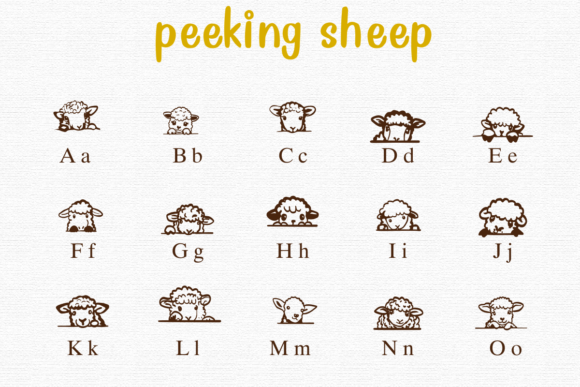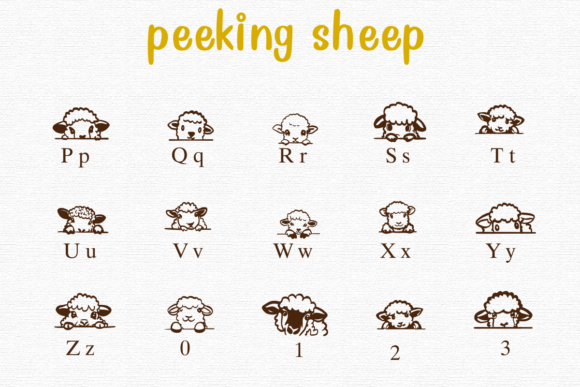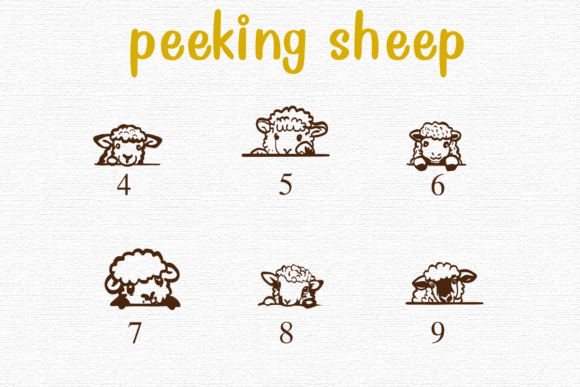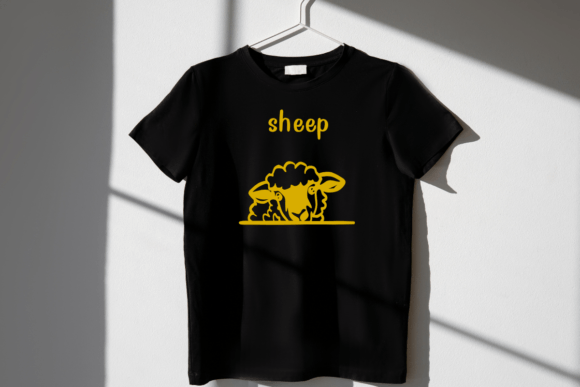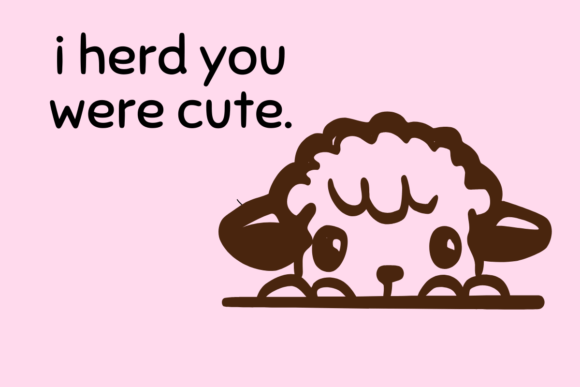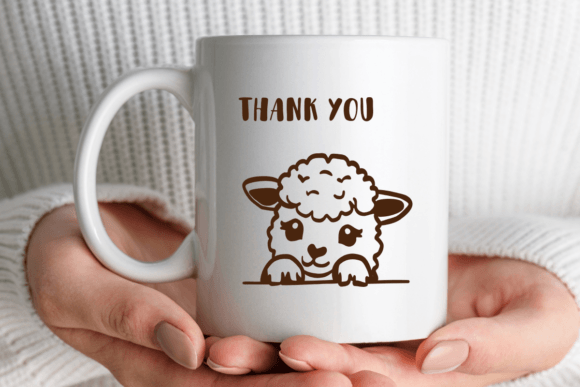
Introduction to Peeking Sheep Font
Do you remember the excitement of creating your first scrapbook as a child? The thrill of picking out colorful stickers and gluing them onto a blank page? For many of us, that sense of creativity and joy never fades, and as designers, we’re always on the lookout for new and inspiring resources to bring our projects to life. That’s why we’re excited to introduce you to the Peeking Sheep Font, a playful dingbat font that’s sure to add a touch of whimsy to any design.
This charming font is filled with adorable sheep peeking out from letters and symbols, each one bursting with curiosity and charm. Whether you’re working on a free download or a high-quality design project, the Peeking Sheep Font is the perfect design resource to add a friendly and approachable vibe. With its transparent background and high-quality design, you can easily incorporate it into your designs and messaging.
- Includes 2 unique font styles with various glyphs and symbols
- Perfect for designers, artists, and writers seeking a distinctive look
Honest Review: Peeking Sheep Font
One of the standout features of the Peeking Sheep Font is its transparent background, which allows for seamless integration with any design element. I also appreciate the high-quality design, which gives it a professional look and feel.
What works well: ✨ High-quality design, ✨ Unique style, ✨ Easy to download and use.
However, I did encounter a few limitations: ⚠️ Limited font styles and weights, ⚠️ May not be suitable for large-scale text.
Overall, I think the Peeking Sheep Font is a great design resource for small-scale creative projects. While it may not be suitable for every project, it’s definitely worth considering for those looking for a unique and eye-catching font.
As a designer, I appreciate the attention to detail and the thoughtfulness that went into creating this font. It’s a great example of how a well-designed font can elevate a design project.
Peeking Sheep Font
The Peeking Sheep Font is a unique and quirky design resource perfect for adding a playful touch to your creative projects. This high-quality font features a transparent background, making it easy to integrate into your designs.
Common Use Cases for Peeking Sheep Font
The Peeking Sheep Font is perfect for a variety of creative projects, including:
- Children’s party invitations and decorations.
- Fun and playful social media graphics.
- Quirky greeting cards and gift tags.